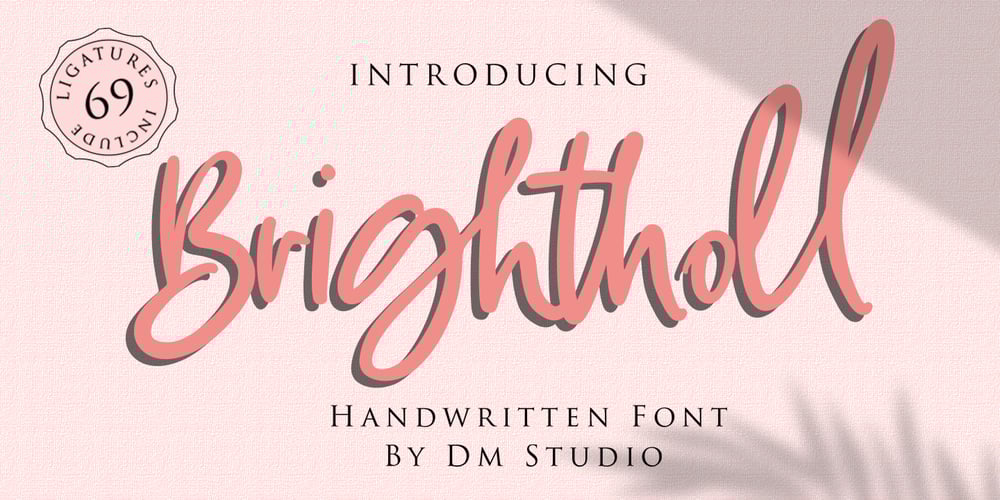
Brightholl
Brightholl font
Brightholl Font Family was designed by Dimas Prasetyo and published by DM Studio. Brightholl contains 1 styles and family package options. Brightholl Handwritten Font is a vibrant and cheerful typeface that brings a personal and friendly touch to your designs. With its casual and lively letterforms, this font is perfect for a variety of creative projects, including greeting cards, social media graphics, logos, and more. Add a dash of positivity and warmth to your work with the Brightholl Handwritten Font.Features: Vibrant and Cheerful Design: The Brightholl Font features lively and casual letterforms that add a friendly and inviting aesthetic to your text. Versatile Application: Ideal for greeting cards, social media graphics, logos, and various other creative projects, enhancing them with a personal touch. Uppercase and Lowercase Letters: Includes both uppercase and lowercase letters for flexible and creative typography. Ligatures and Special Characters: Offers a range of ligatures and special characters to create unique and engaging text. Punctuation and Symbols: Comes with a comprehensive set of punctuation marks, numerals, and symbols for consistent and versatile use. Easy Installation and Use: Simple to install on both Windows and Mac operating systems, and integrates seamlessly with popular design software for a smooth workflow.